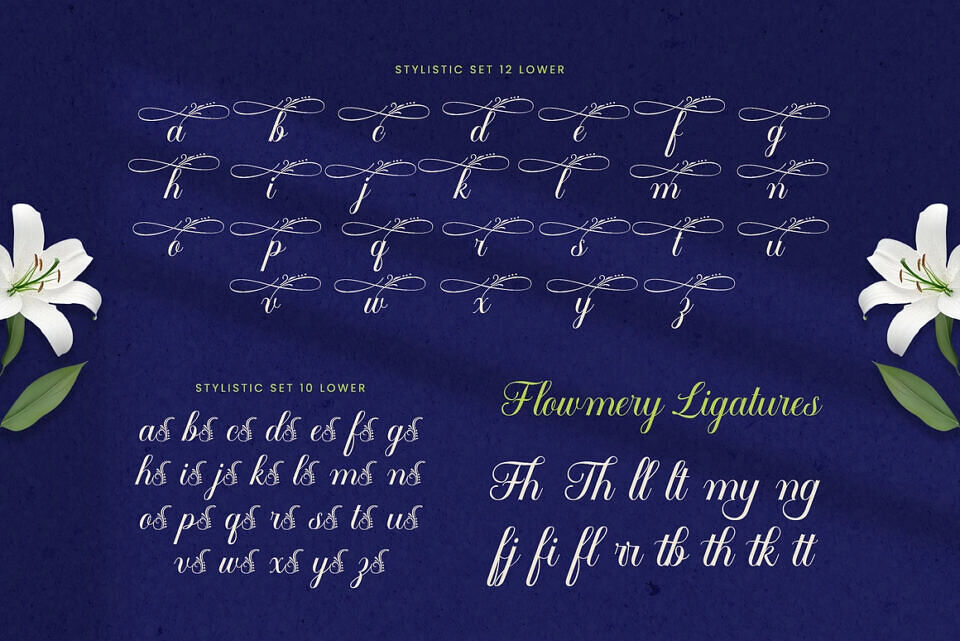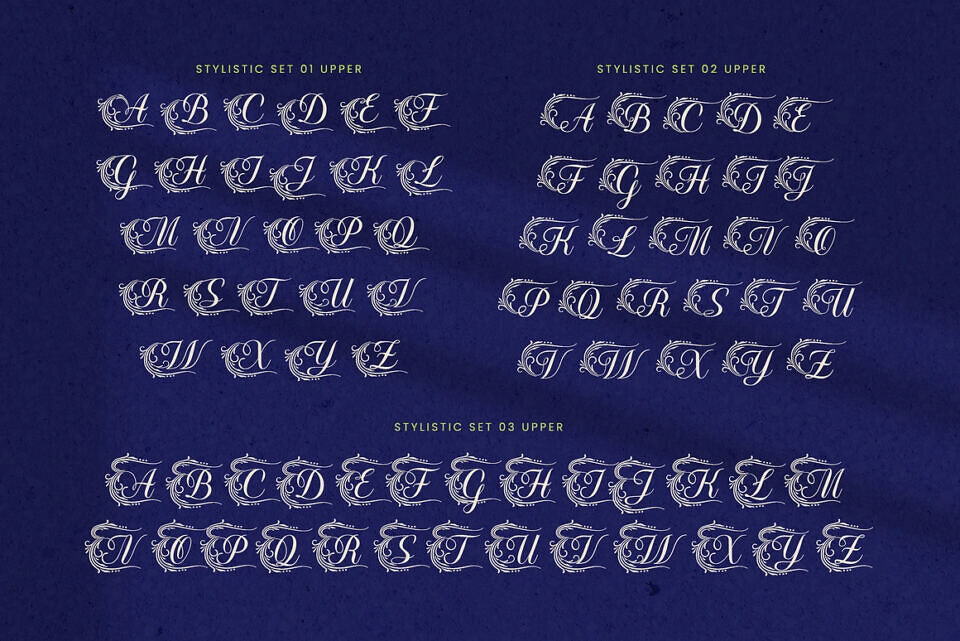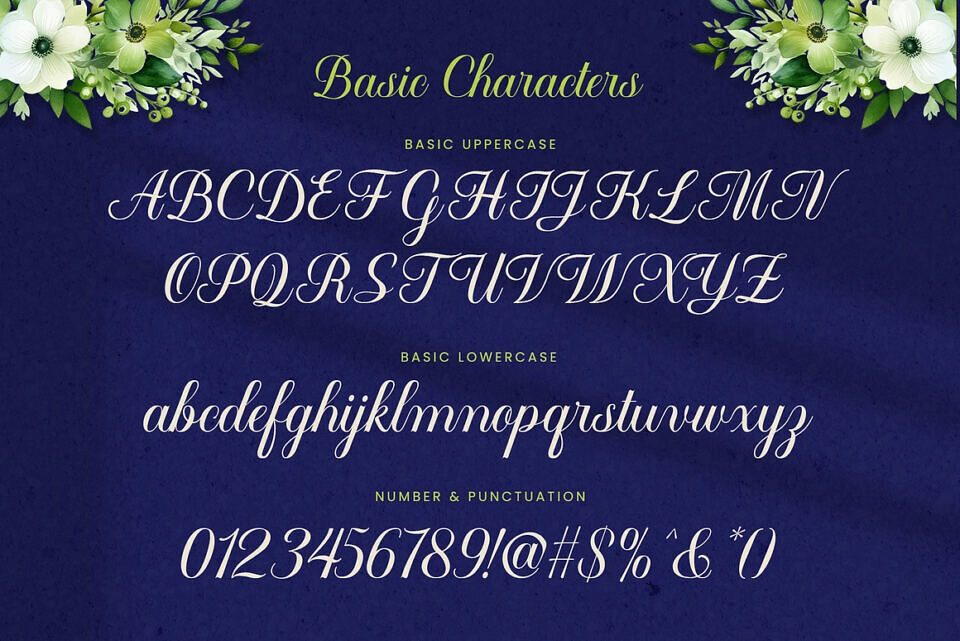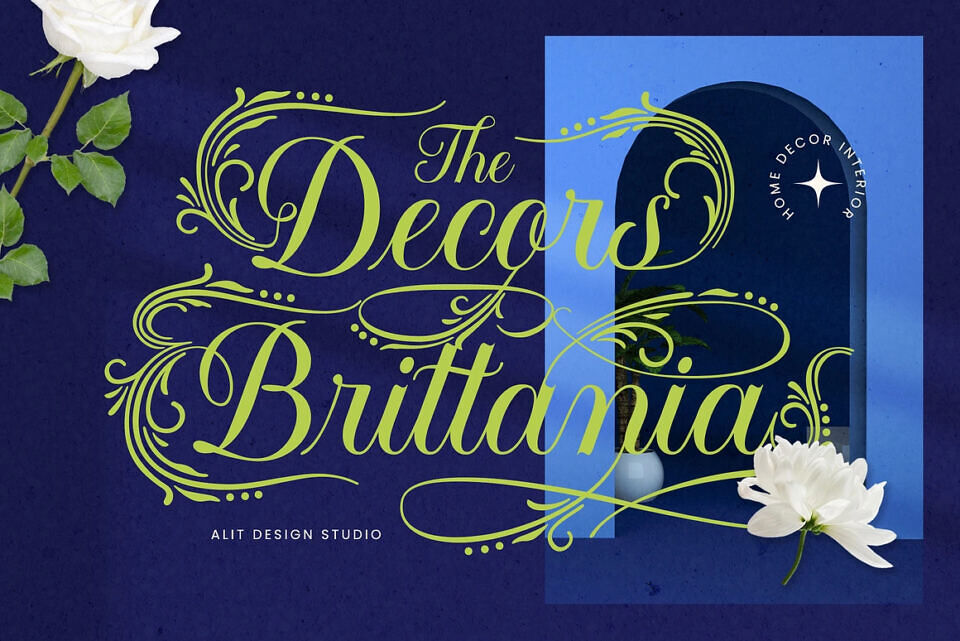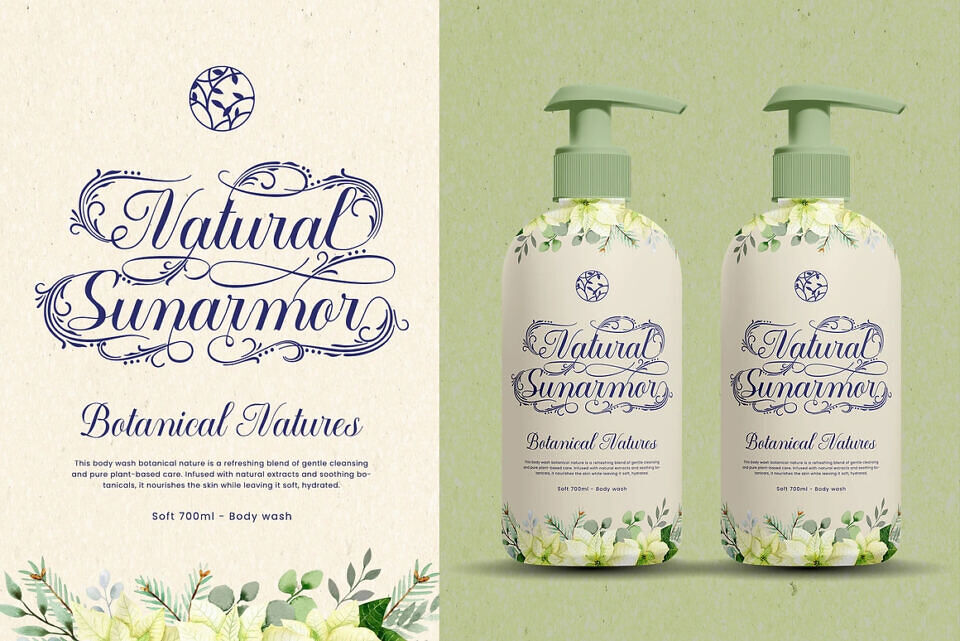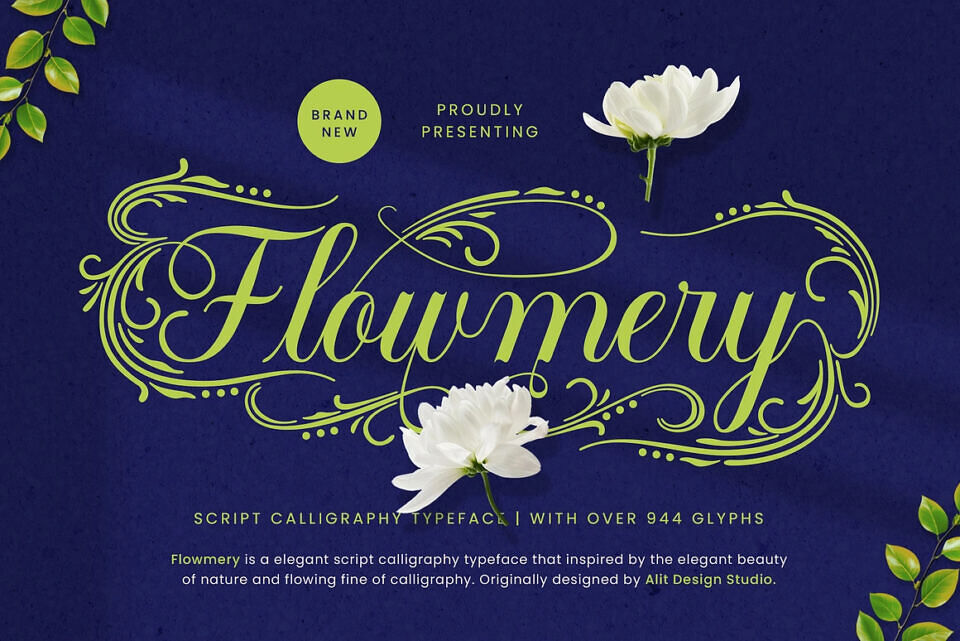
Flowmery Font
Flowmery is an elegant and flowing script typeface inspired by the delicate beauty of nature and the timeless grace of calligraphy. Crafted with precision and artistry, it captures organic movement and refined sophistication. Featuring over 944 glyphs, Flowmery offers endless creative possibilities through its alternates, ligatures, and swashes.
Perfect for wedding invitations, branding, or luxury packaging, this versatile script font ensures seamless connections and harmonious rhythm, adding a natural charm and distinguished elegance to every design project.